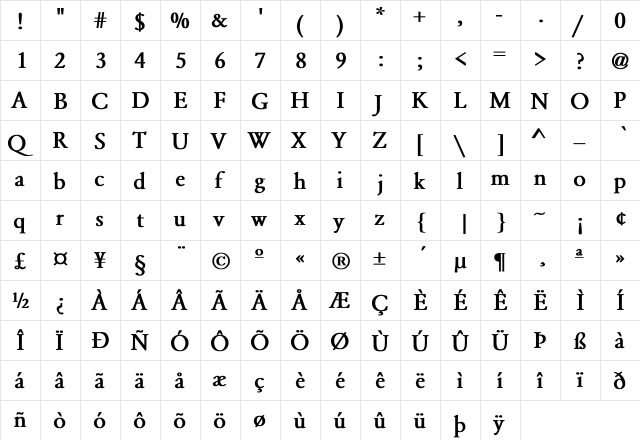
Smedley-Normal Bold Regular
Design Context for Smedley-Normal Bold Typeface
Smedley-Normal Bold takes a measured approach to typography — its balanced proportions and neutral character make it a reliable workhorse for both digital and print work. Its bold stroke weight gives it real presence on the page.